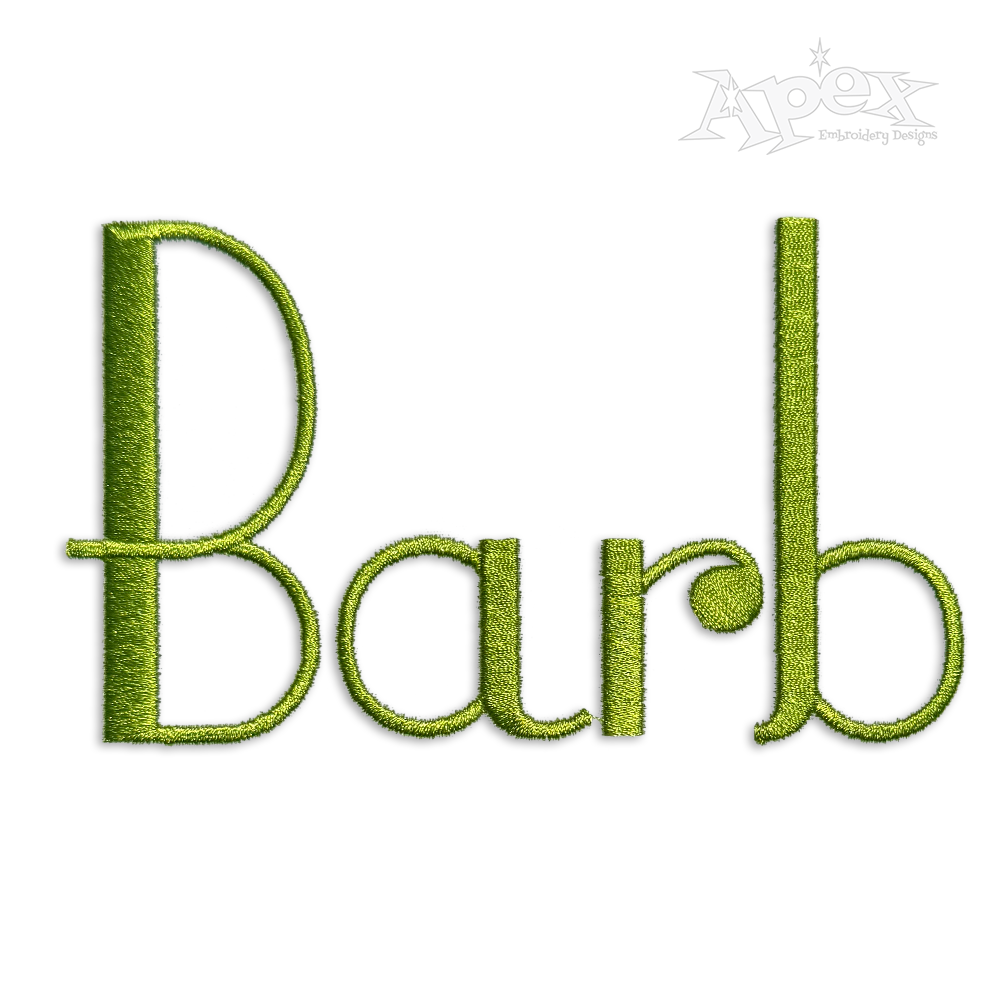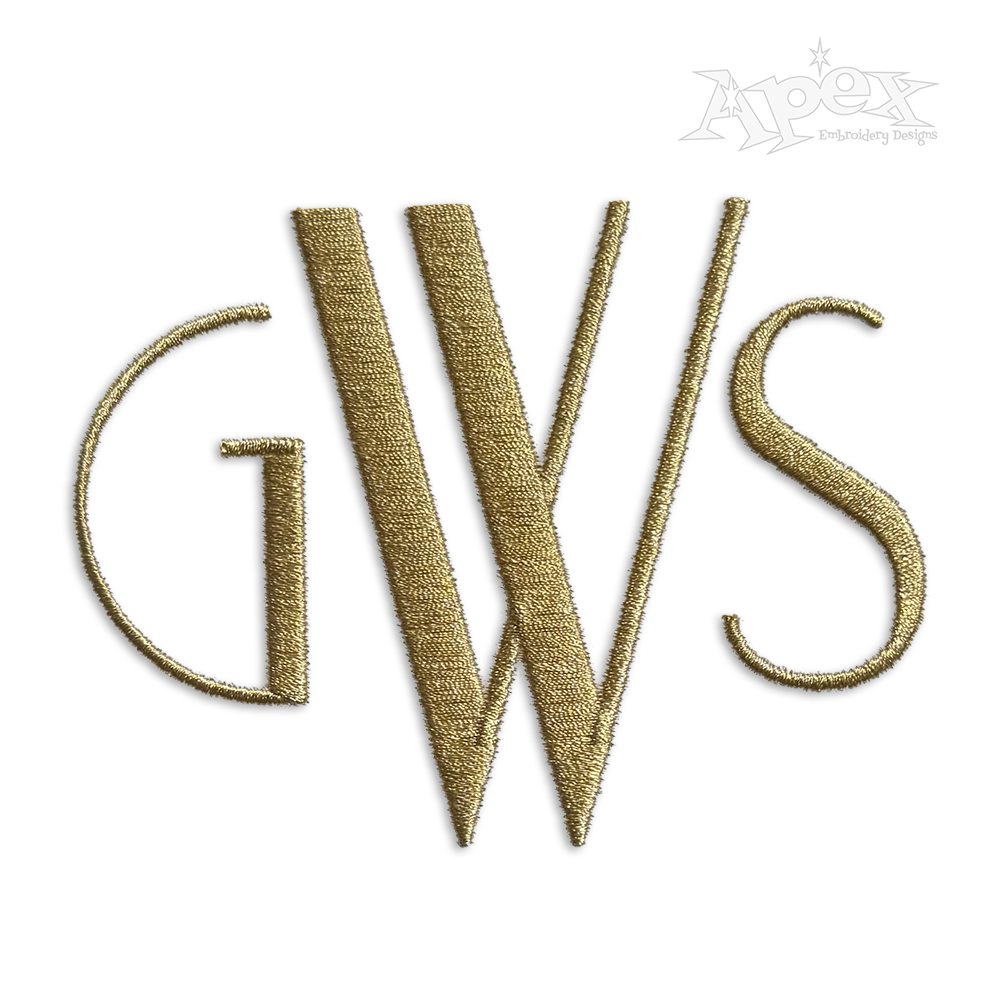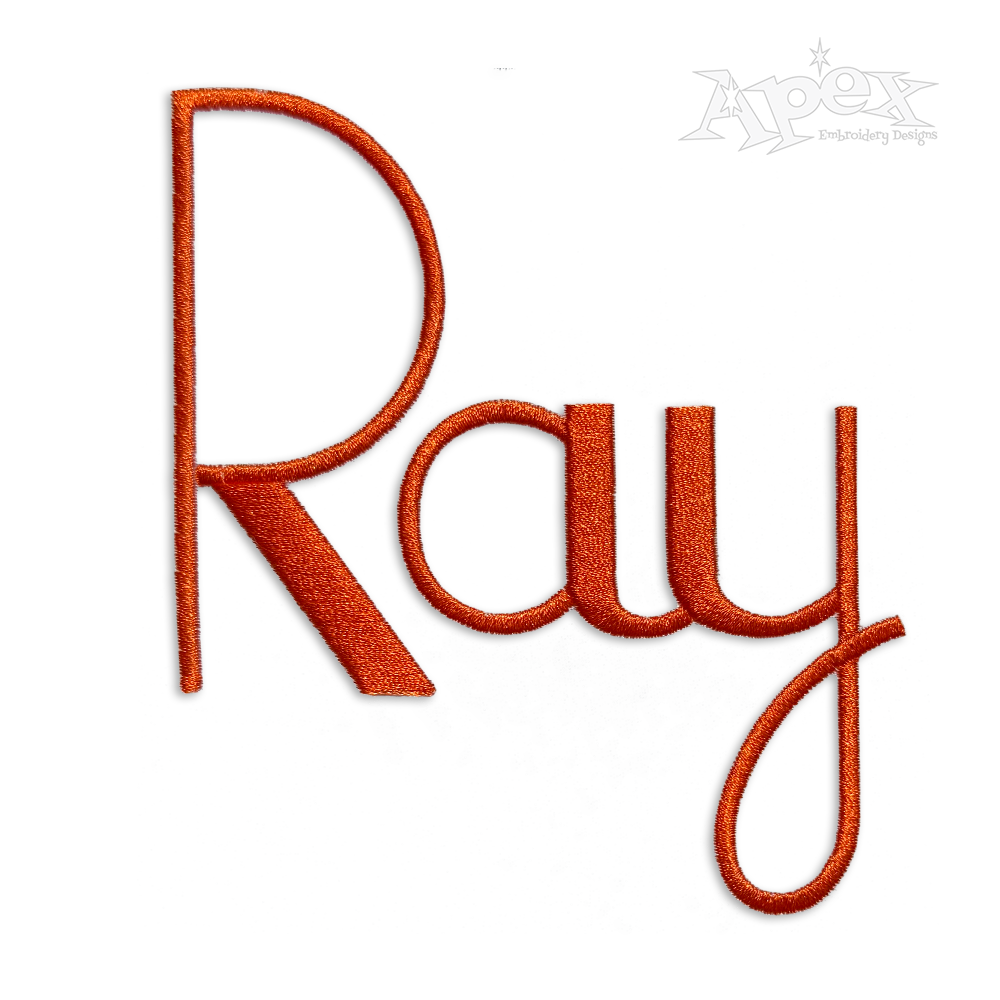
Fifth Ave Embroidery Fonts
Drawing inspiration from the timeless glamour and architectural poise of New York’s most storied boulevard, the Fifth Ave embroidery font embodies the polished grace of classic bespoke tailoring. When designing this alphabet, our goal was to capture that unmistakable high-society sophistication—the quiet luxury found in vintage hotel stationery, personalized trousseaus, and gilded penthouse parlors. Rendered in a seamless, lustrous satin finish, each letter glides across fabric with confident geometry, bringing an air of effortless prestige to modern heirloom embroidery.
Fifth Ave Embroidery Fonts Craft & Letterform Details
Digitizing a font with this level of statuesque refinement demands a master artisan's hand. Every vertical stem, graceful arch, and crisp terminal in Fifth Ave was digitized manually—never auto-traced—to establish unbroken stitch pathways that minimize unnecessary jump cuts and prevent unsightly thread knots. We specifically calibrated the underlay foundation to anchor firmly into varied textiles, preventing fabric sinking while allowing the top satin stitch columns to crest into a luminous, mirror-smooth dome that catches ambient light from every angle. Corners are precision-mitered with directional angle adjustments, ensuring that the transitions remain sharp and razor-crisp rather than bulky. It is this dedication to stitch geometry that yields a professional finish worthy of the world's most luxurious fashion houses.